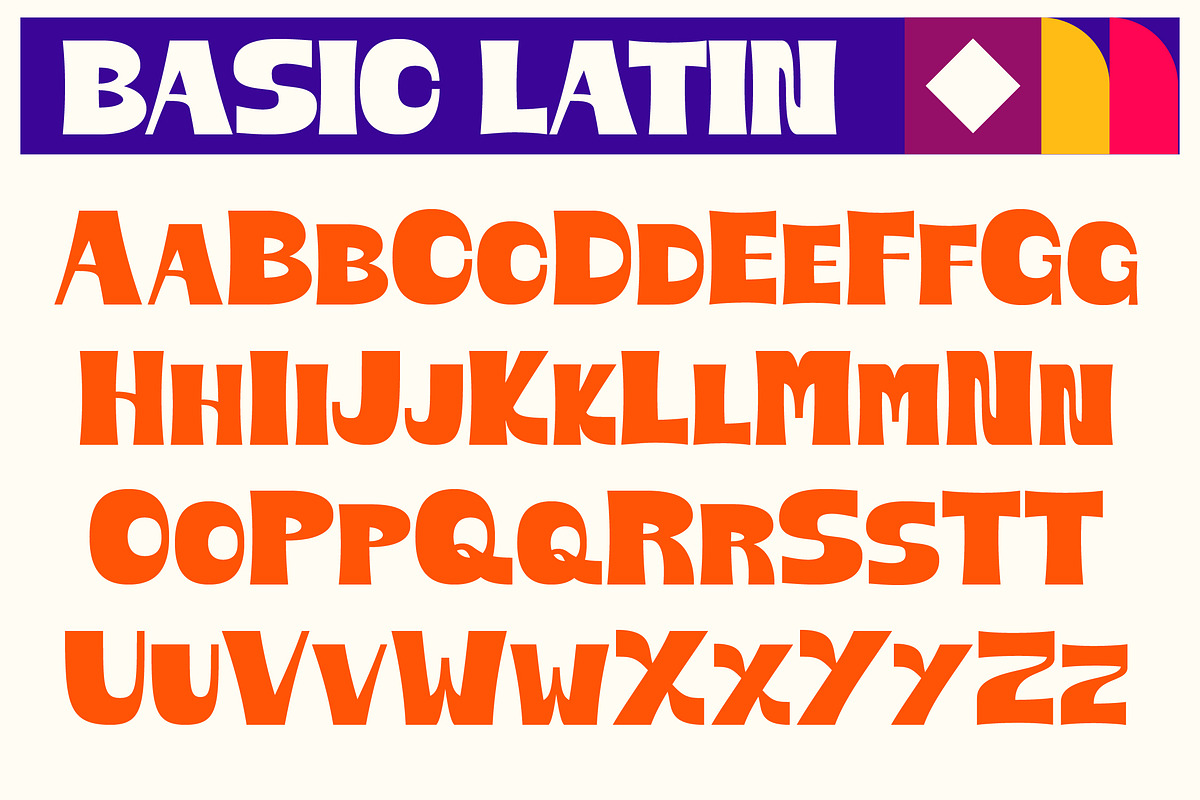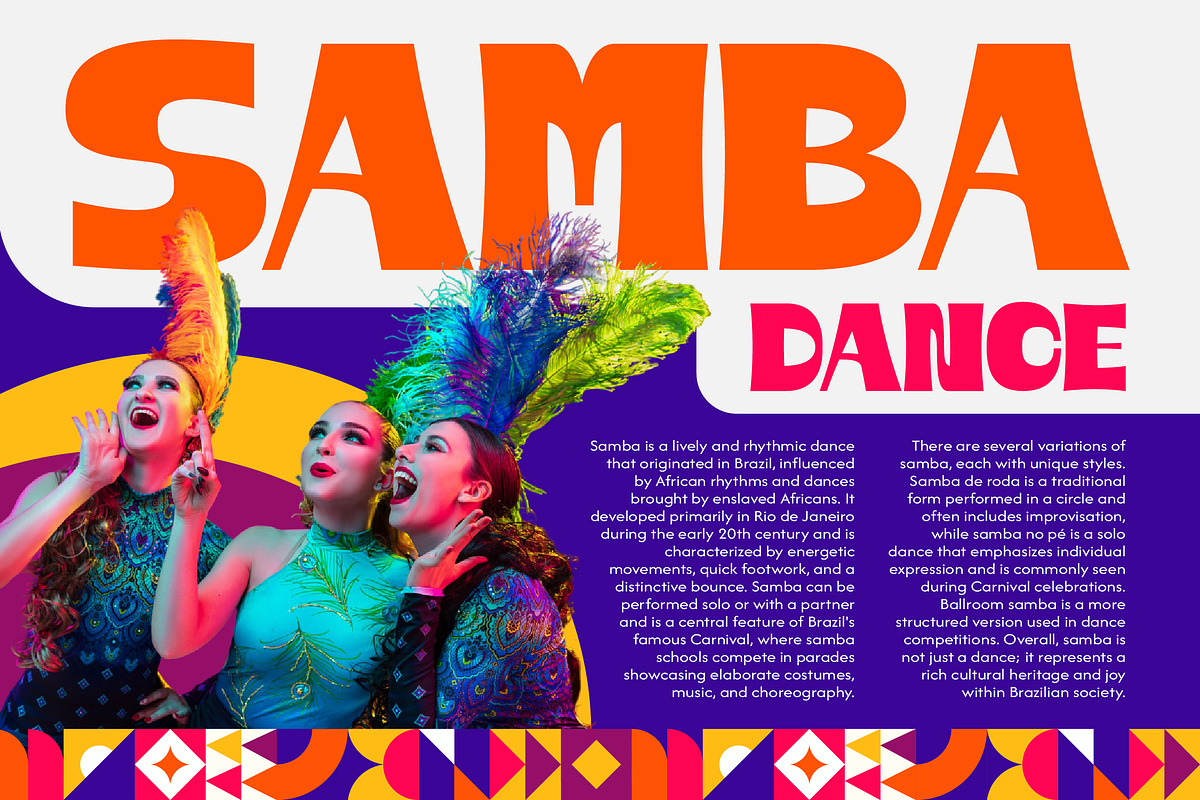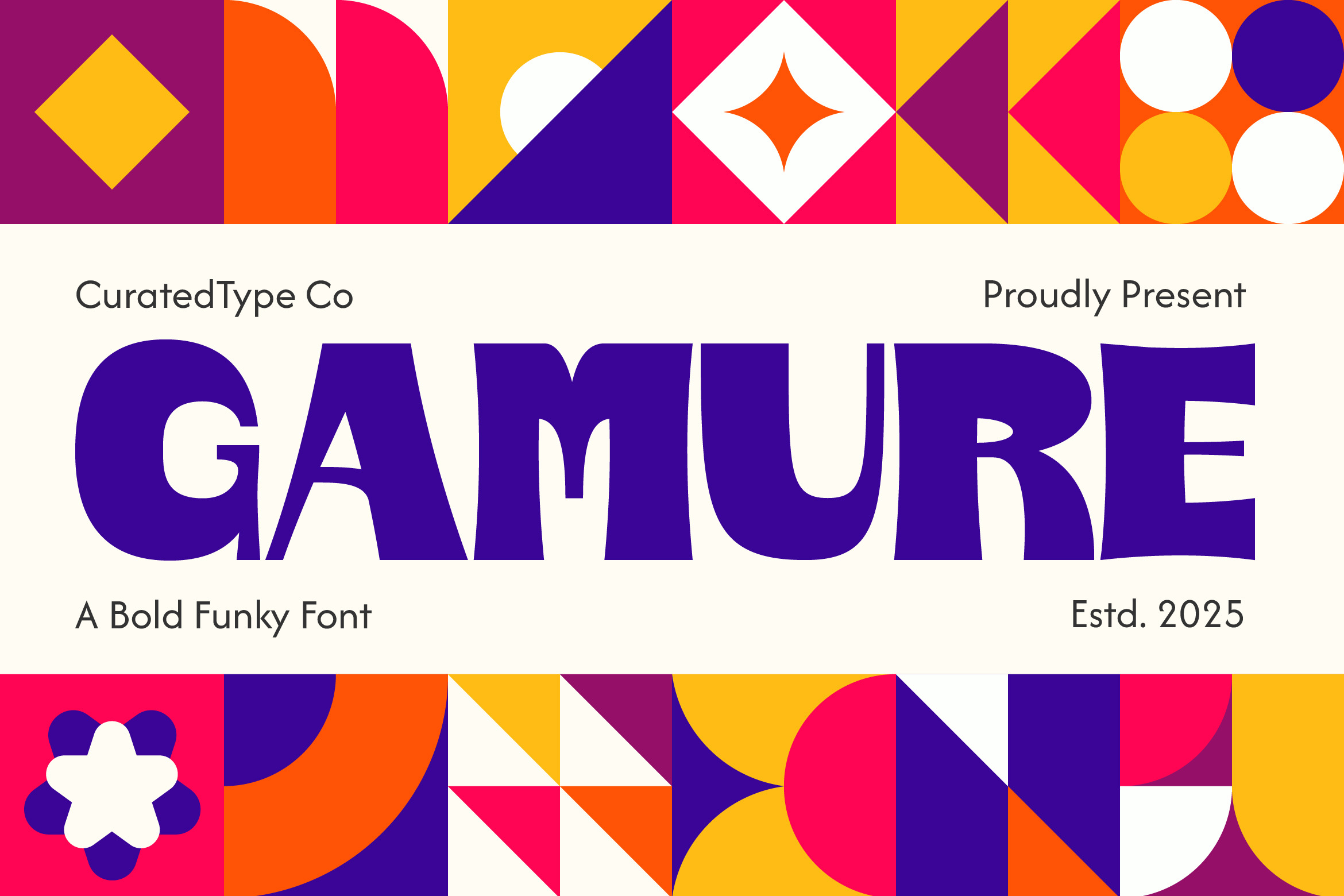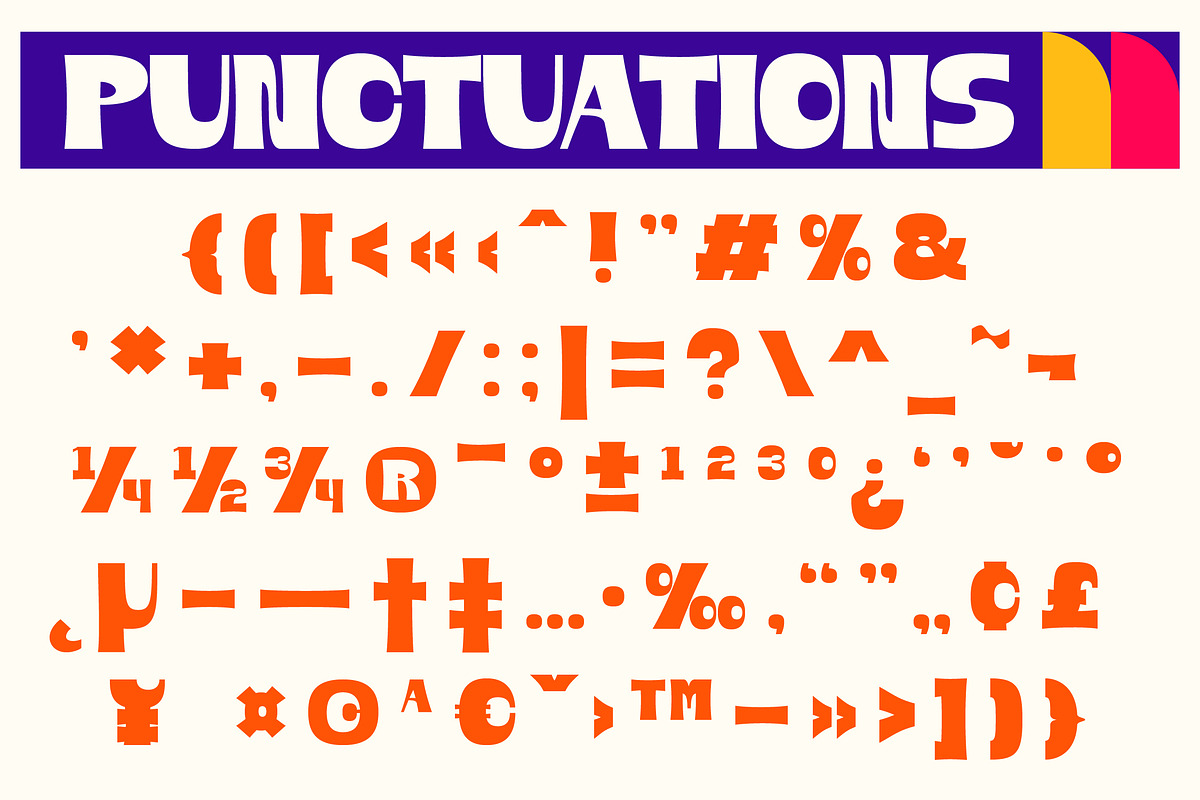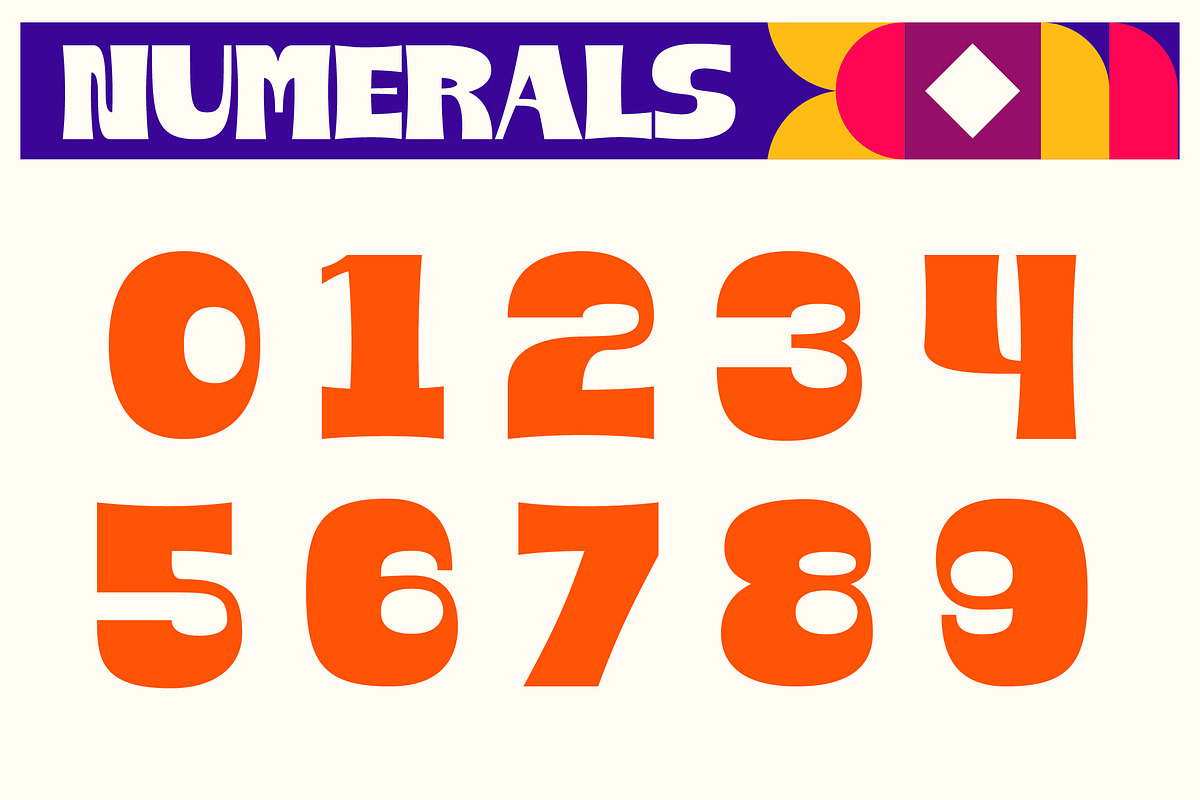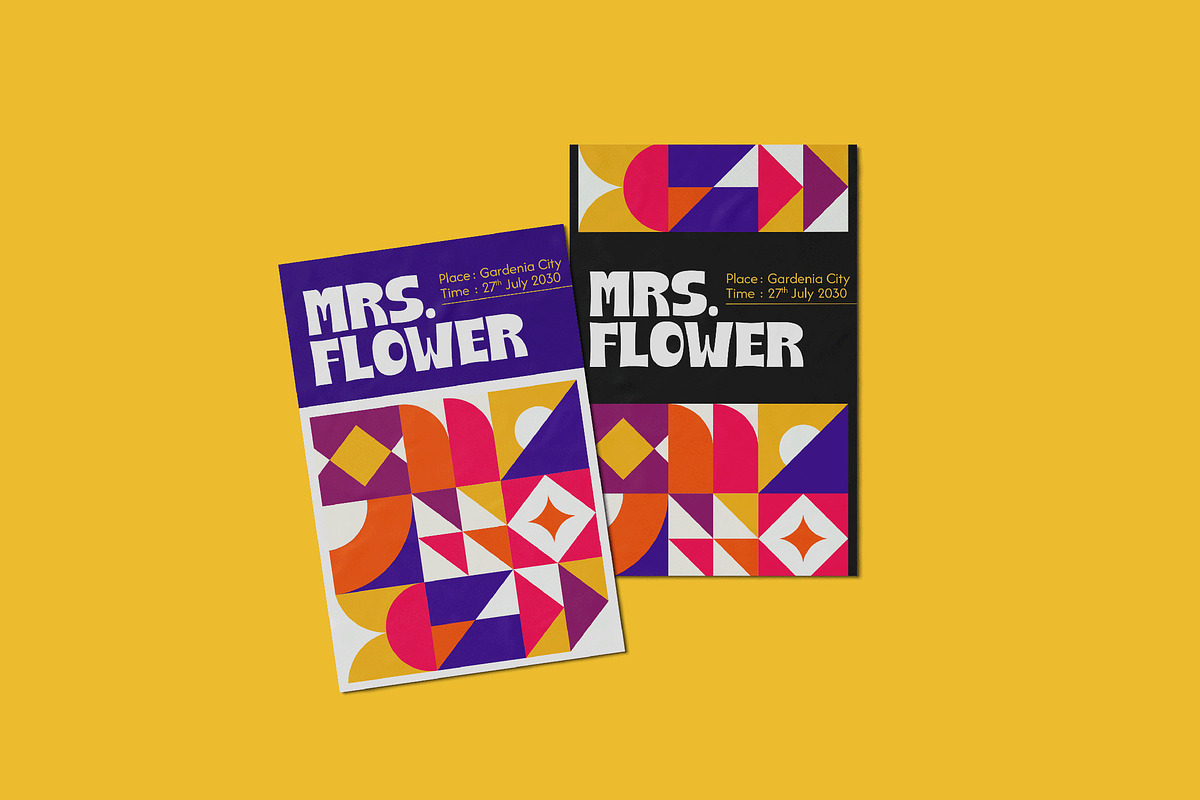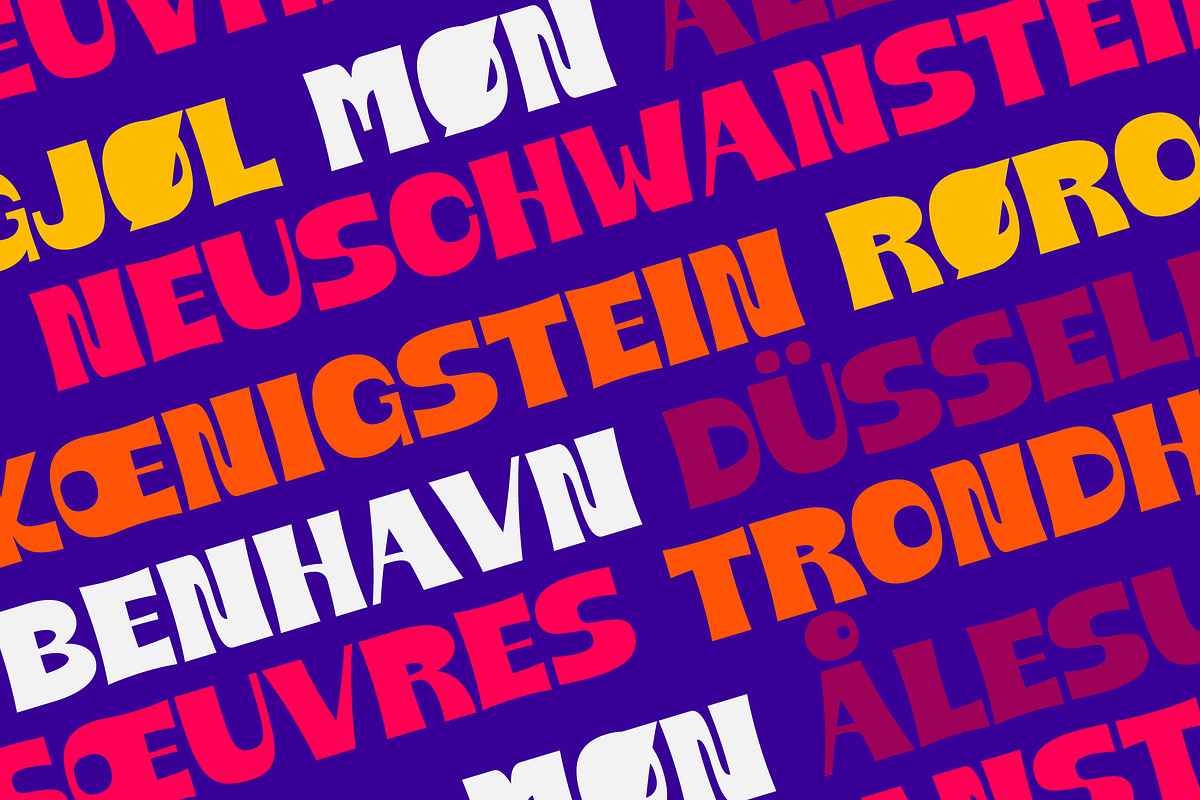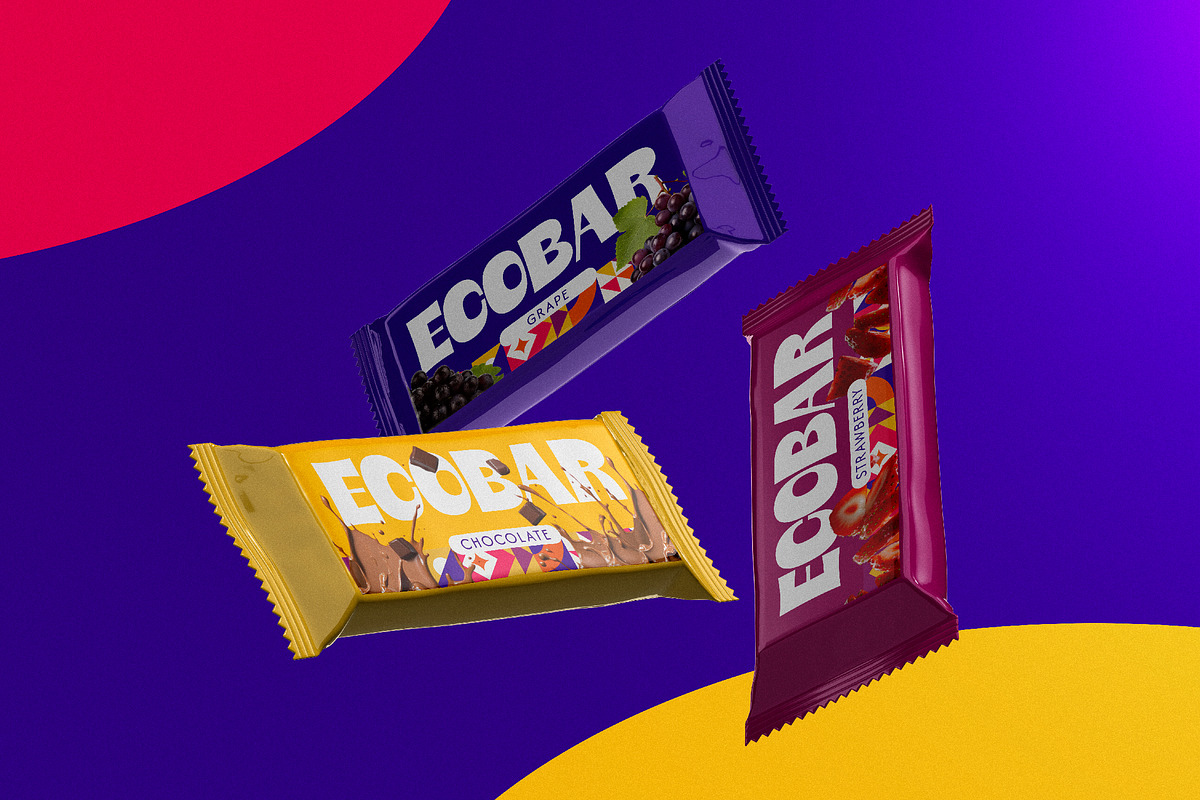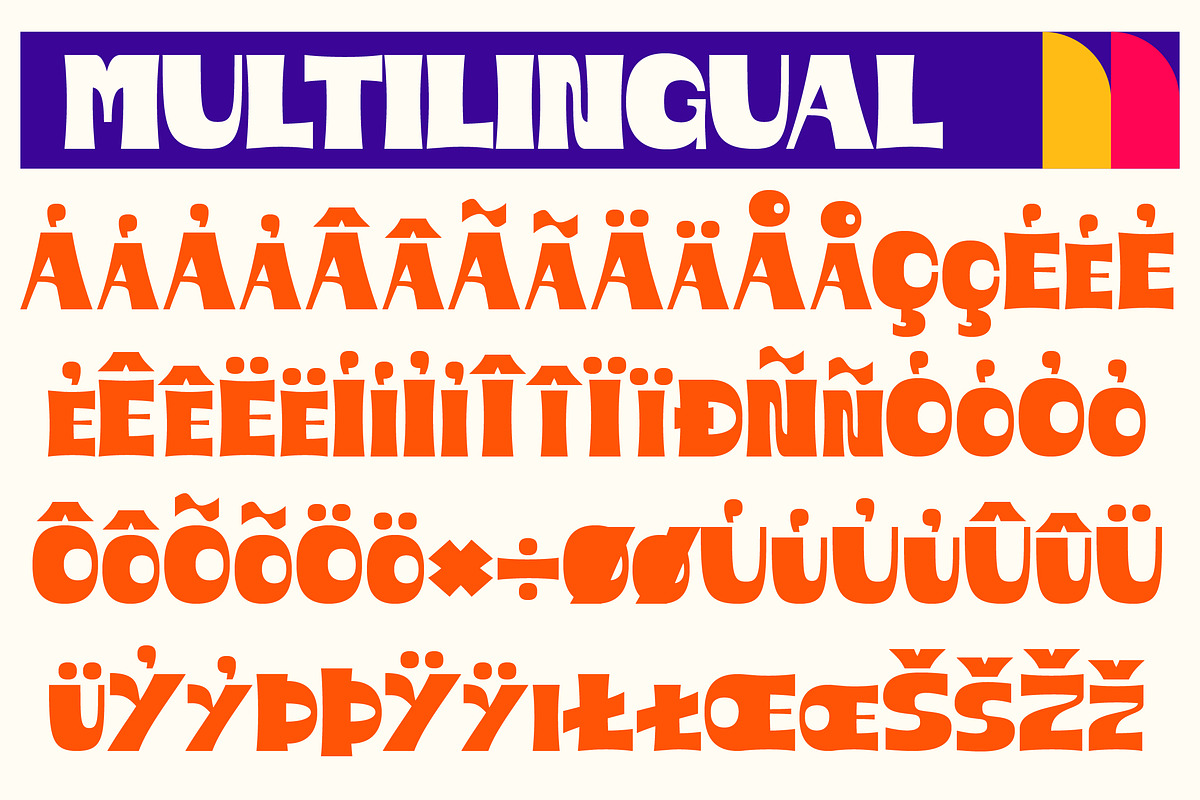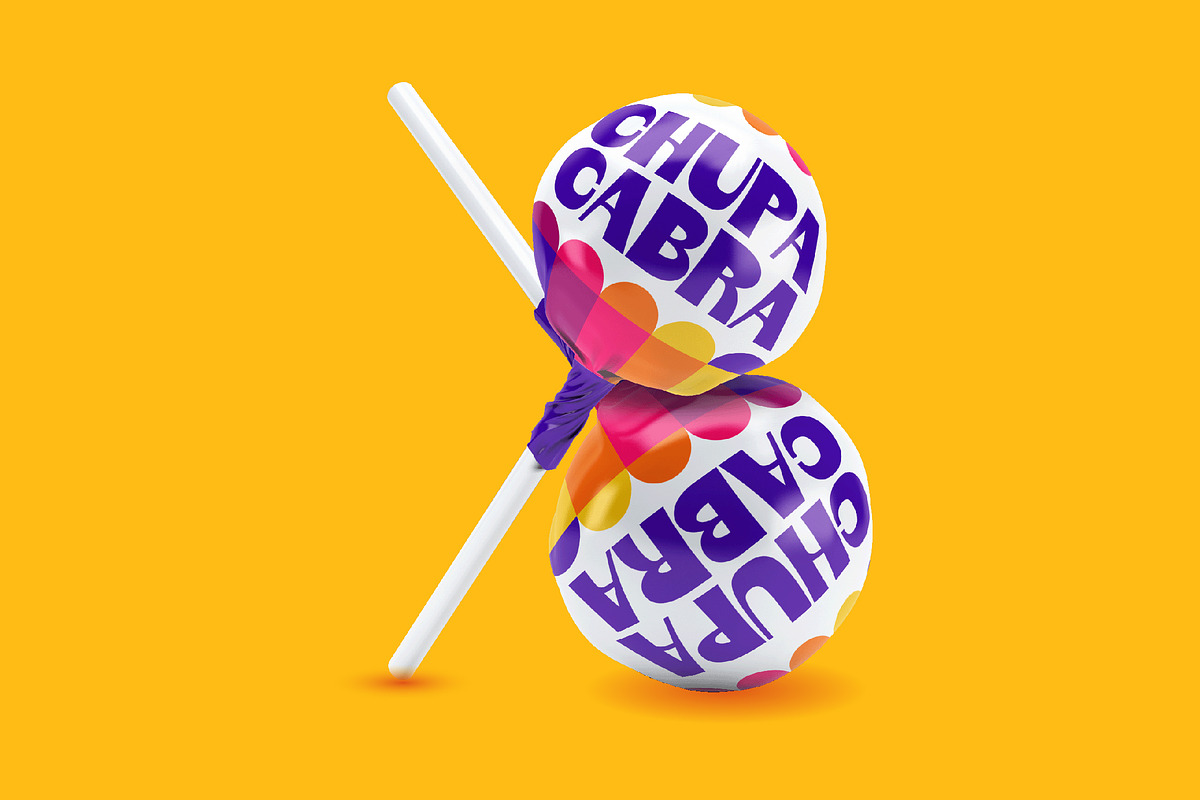
Gamure - Playful Bold Display Font
Gamure is a playful display typeface characterized by its bold, quirky letterforms that evoke a sense of fun and creativity. With its thick strokes and irregular shapes, Gamure stands out in both print and digital media, making it an ideal choice for children’s books, posters, and promotional materials. The lively nature of the font draws attention and invites curiosity, perfect for projects that aim to engage and entertain.
This typeface effectively balances readability with a whimsical aesthetic, allowing it to shine in a variety of contexts. Whether used for headlines or short phrases, Gamure adds a unique flair that captivates audiences, making it a versatile addition to a designer’s toolkit. Its vibrant personality not only enhances the visual appeal of any design but also communicates a sense of playfulness and joy.